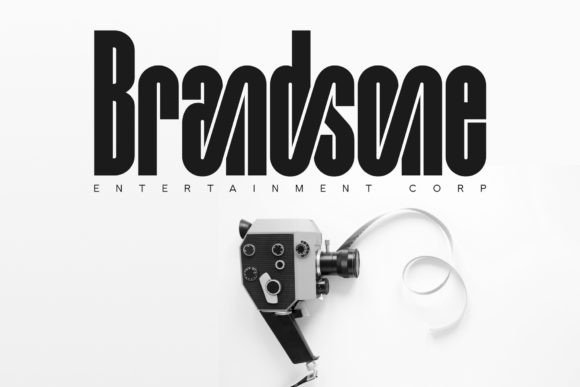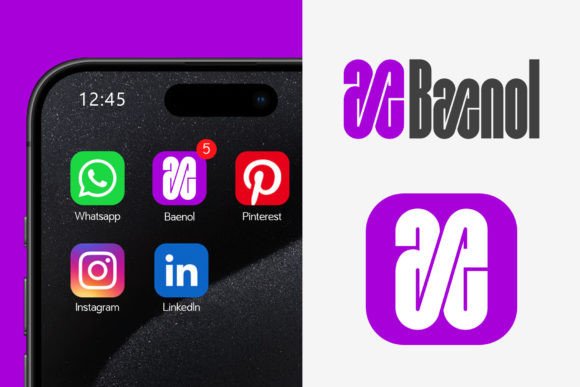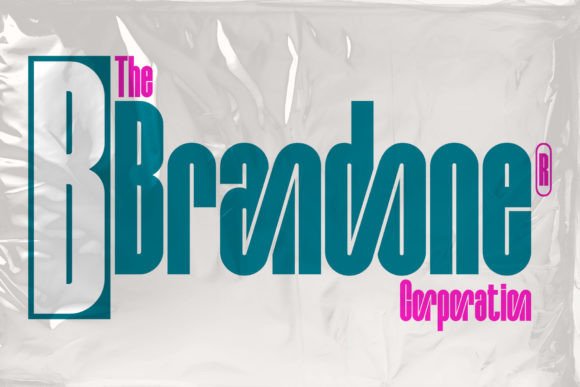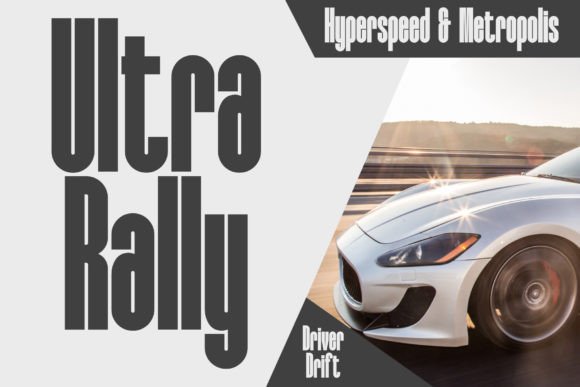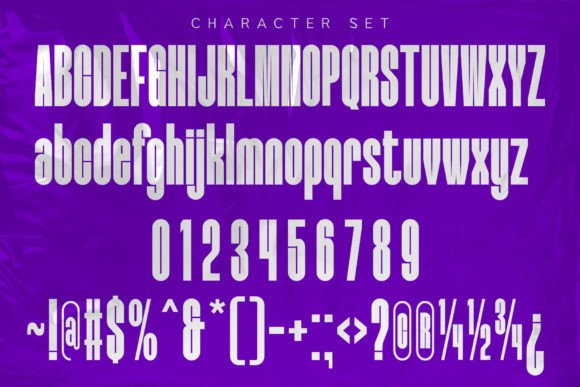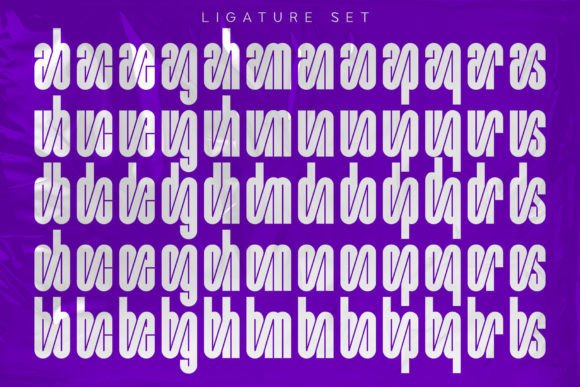
Introduction to Rasedron Font
You’ve spent hours perfecting your creative project, and the final touch is a logo that truly represents your brand’s personality. As you stare at your computer screen, trying to find the perfect font, you feel a sense of frustration wash over you. But what if I told you that there’s a font that can elevate your branding and make your design stand out from the crowd?
Enter the Rasedron Font, a sleek and contemporary sans serif font that’s designed to create striking logos and visual identities. With its unique ligatures and modern aesthetic, this font is perfect for brands that want to make a bold statement and stand out from the competition.
Whether you’re designing for digital platforms or print, Rasedron Font offers versatility and clarity, ensuring that your message is conveyed with style and precision. And the best part? This high-quality font is available for free download, making it an invaluable design resource for any creative project.
Key Features of Rasedron Font
- High-quality font design, ideal for creative projects and professional use.
- Unique, modern design with a clean and minimalist aesthetic, making it perfect for a variety of creative projects.
- Perfect for use in logos, branding, typography, and other design elements where a high-quality font is required.
Honest Review: Rasedron Font
I recently stumbled upon the Rasedron Font, and I’m excited to share my thoughts on this design resource. Overall, I’m quite impressed with what I’ve seen.
What works well is the font’s versatility and the high quality of its design. It’s a perfect addition to any creative project that requires a modern and sleek look. The Rasedron Font is available for free download, which is a huge plus for designers on a budget. The transparent background also makes it easy to incorporate into any design.
- ✨ Unique and modern design
- ✨ High quality font
However, there are a few limitations to consider. The font may not be suitable for projects that require a more traditional or classic look. Additionally, the font’s design may not be as customizable as some other fonts on the market.
- ⚠️ May not be suitable for traditional designs
- ⚠️ Limited customization options
Overall, I’m quite impressed with the Rasedron Font. It’s a great addition to any design library, and I would definitely recommend it to designers looking for a modern and sleek font.
Using Rasedron Font in Creative Projects
Rasedron Font is ideal for creative projects that require a unique, high-quality font with a transparent background. You can use it in graphic design, digital art, or even as a design element in presentations.
Tips for Getting the Most Out of Rasedron Font
To get the most out of Rasedron Font, experiment with different font sizes, styles, and colors to create unique and eye-catching designs. You can also combine it with other design elements, such as graphics and images, to add depth and interest to your projects.
Rasedron Font is suitable for various design projects, including:
- Digital art
- Presentation design
- Document design
Alternatives to Rasedron Font
Alegreya is a high-quality serif font ideal for creative projects requiring a sophisticated touch. It’s perfect for use in brochures, magazines, and other print materials. When to use: For formal or elegant designs where a classic look is desired. Alegreya is a great alternative to Rasedron Font for those seeking a more traditional feel.
Montserrat is a modern sans-serif font that’s perfect for digital designs and creative projects requiring a clean and minimalist aesthetic. It’s ideal for use in websites, mobile apps, and other digital platforms. When to use: For contemporary designs where a clean and simple look is desired. Montserrat is a great alternative to Rasedron Font for those seeking a more modern feel.